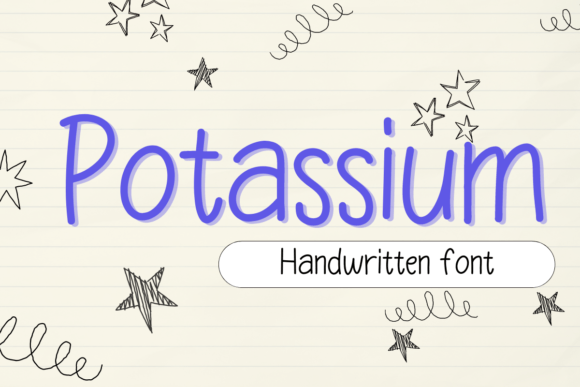
Introducing Potassium Font, the handwritten font that captures the essence of a warm embrace. Sirinart, the creative force behind this masterpiece, has poured their heart and soul into crafting each stroke and curve, resulting in a font that exudes a sense of playfulness and authenticity.
With Potassium Font as your creative companion, your notes will no longer be mere words on a page; they'll be transformed into intimate conversations, whispered secrets, and heartfelt reflections. The smooth, flowing lines of this sans serif font evoke a sense of ease and comfort, making it an ideal choice for taking notes, writing a diary, or crafting personalized greeting cards.
But Potassium's versatility doesn't stop there. Its charm extends far beyond the written word, making it a perfect fit for creating captivating banners, logos, and eye-catching social media posts. The unique character of this font adds a touch of whimsy and personality to any design, helping you stand out from the crowd and make a lasting impression.
If you're looking for a font that breathes life into your creative endeavors, Potassium is the answer. Its ability to effortlessly blend elegance and playfulness makes it a versatile tool for any designer or content creator. From heartfelt notes to captivating designs, Potassium Font will accompany you on your creative journey, adding a touch of magic to every project.
So, embrace the charm of Potassium Font and let your creativity flow freely. Discover the joy of expressing yourself through handwritten words that dance across the page, carrying your thoughts and emotions with grace and style.